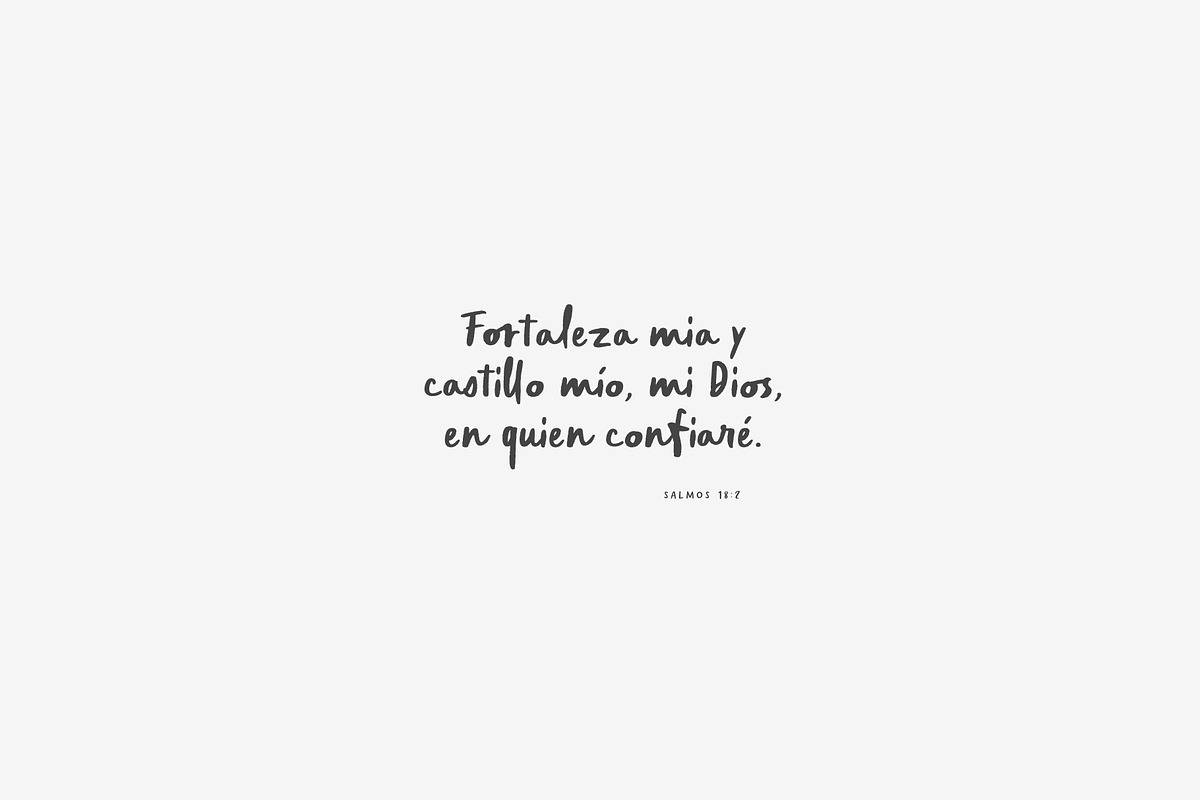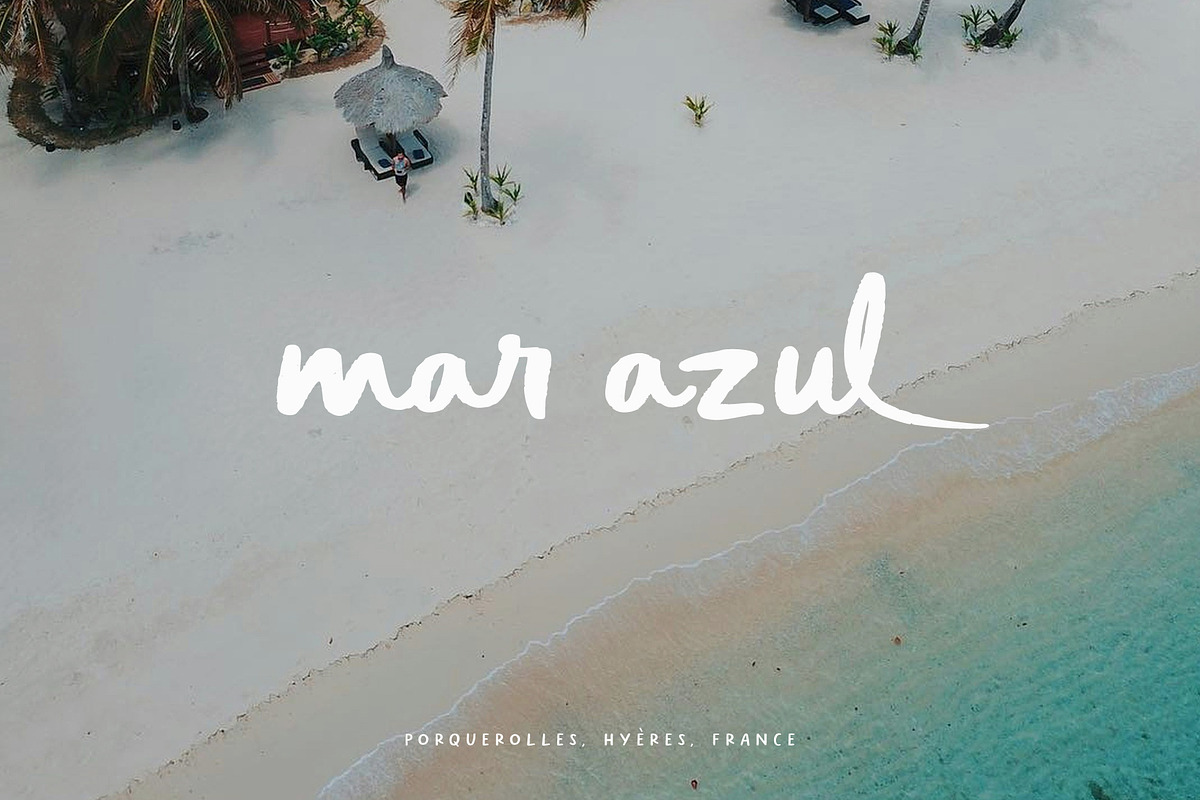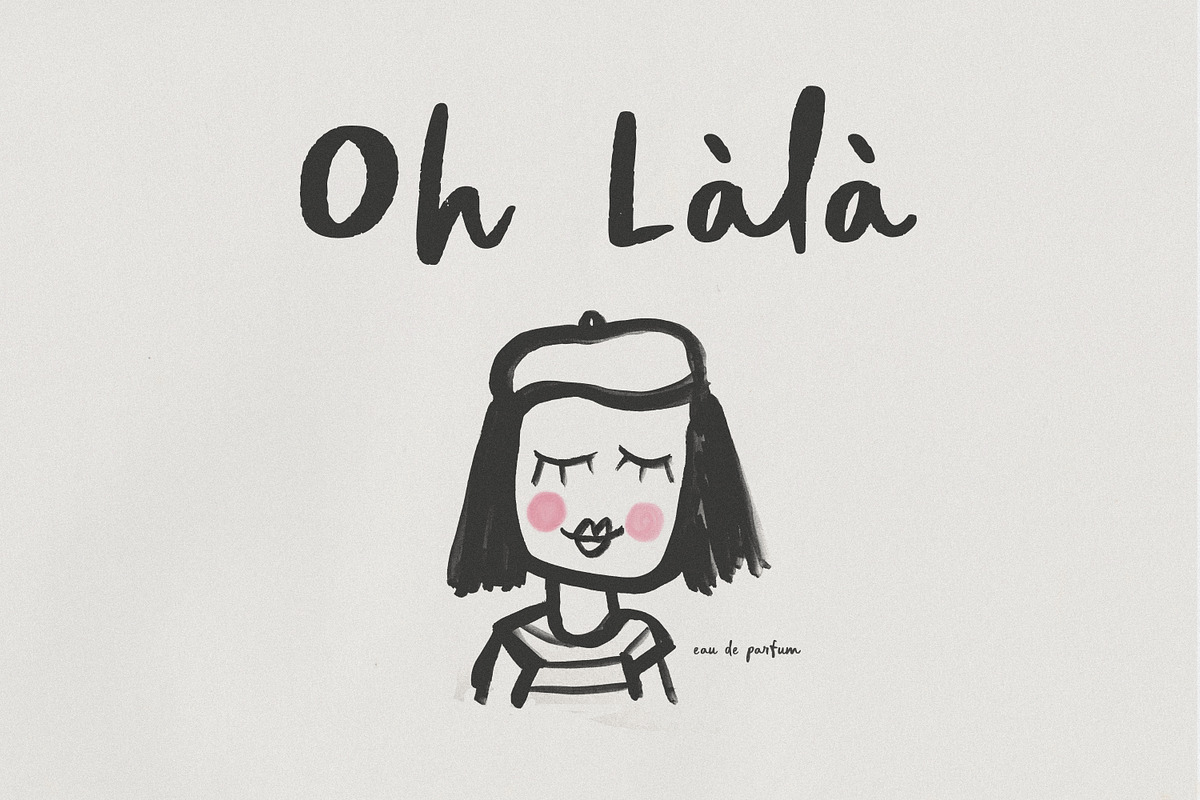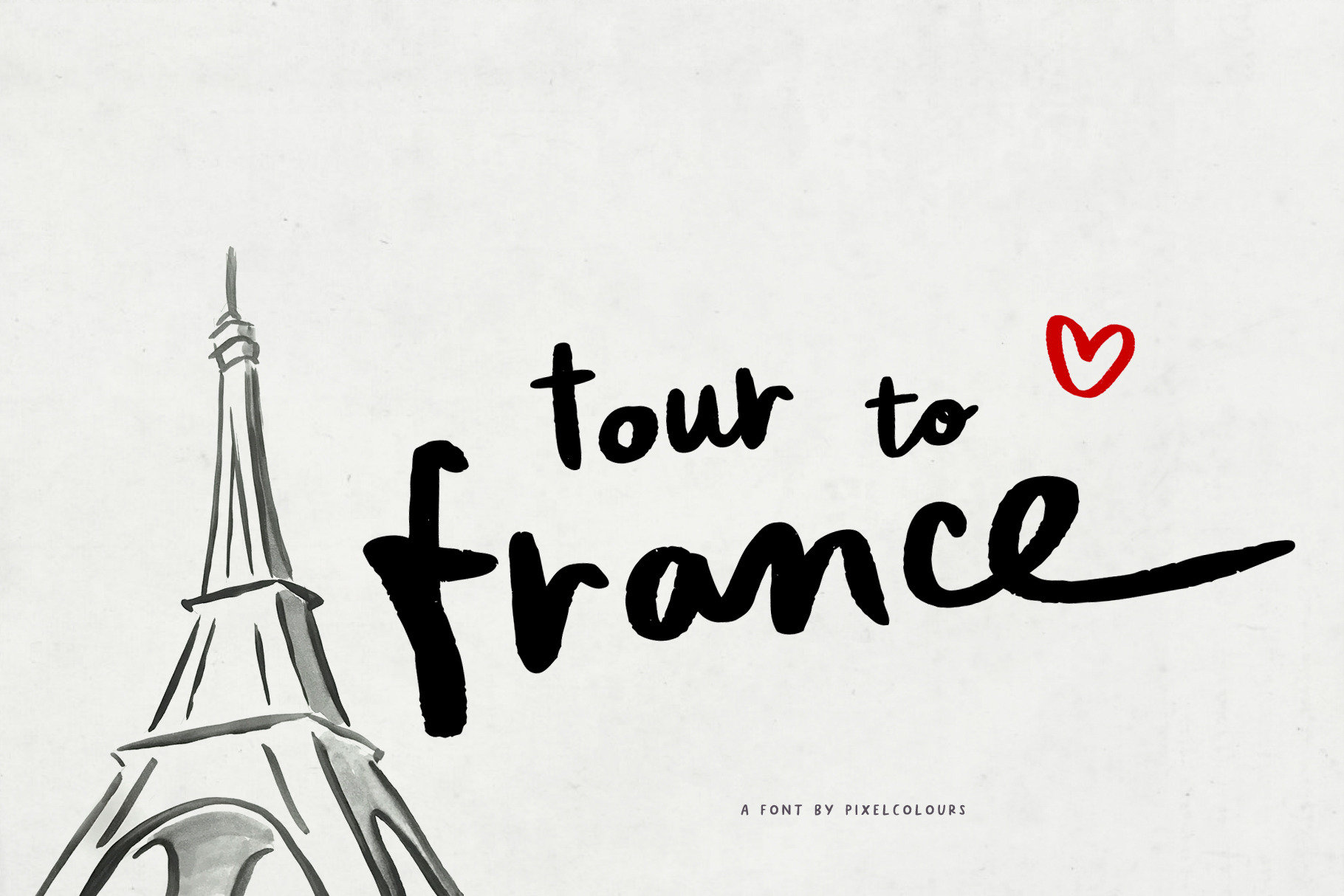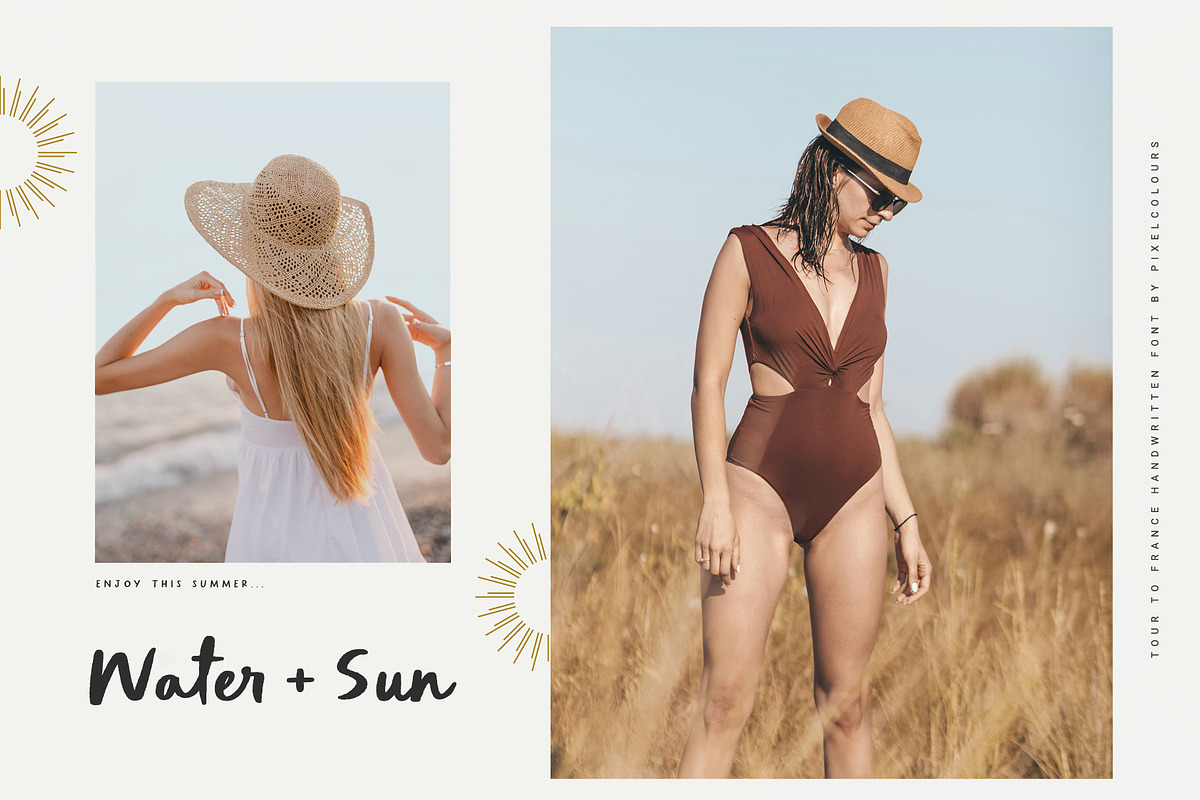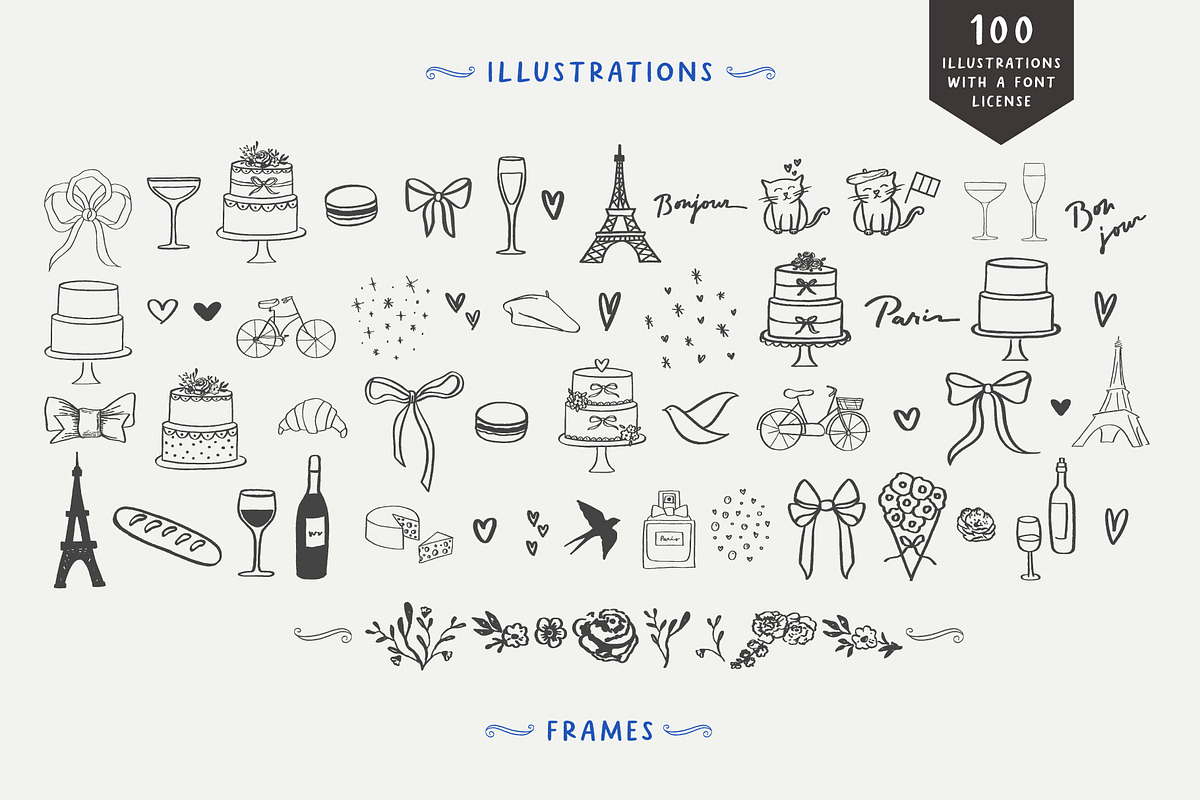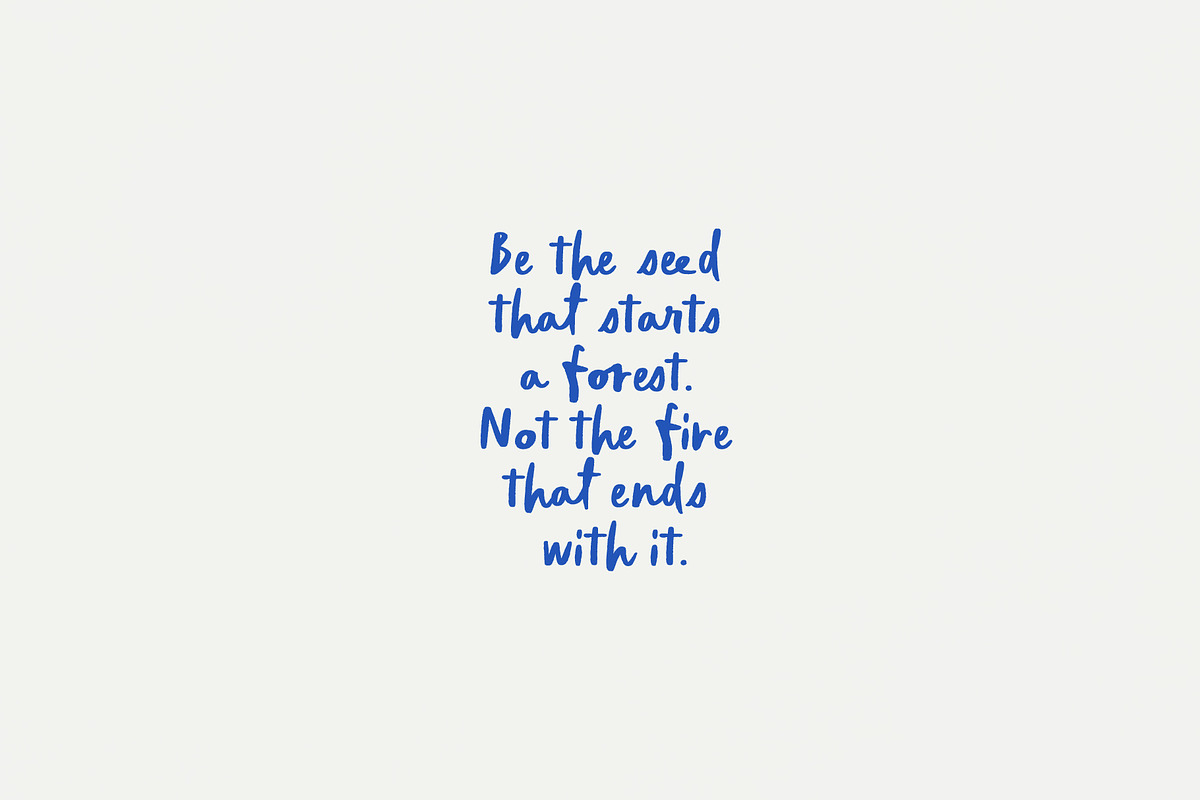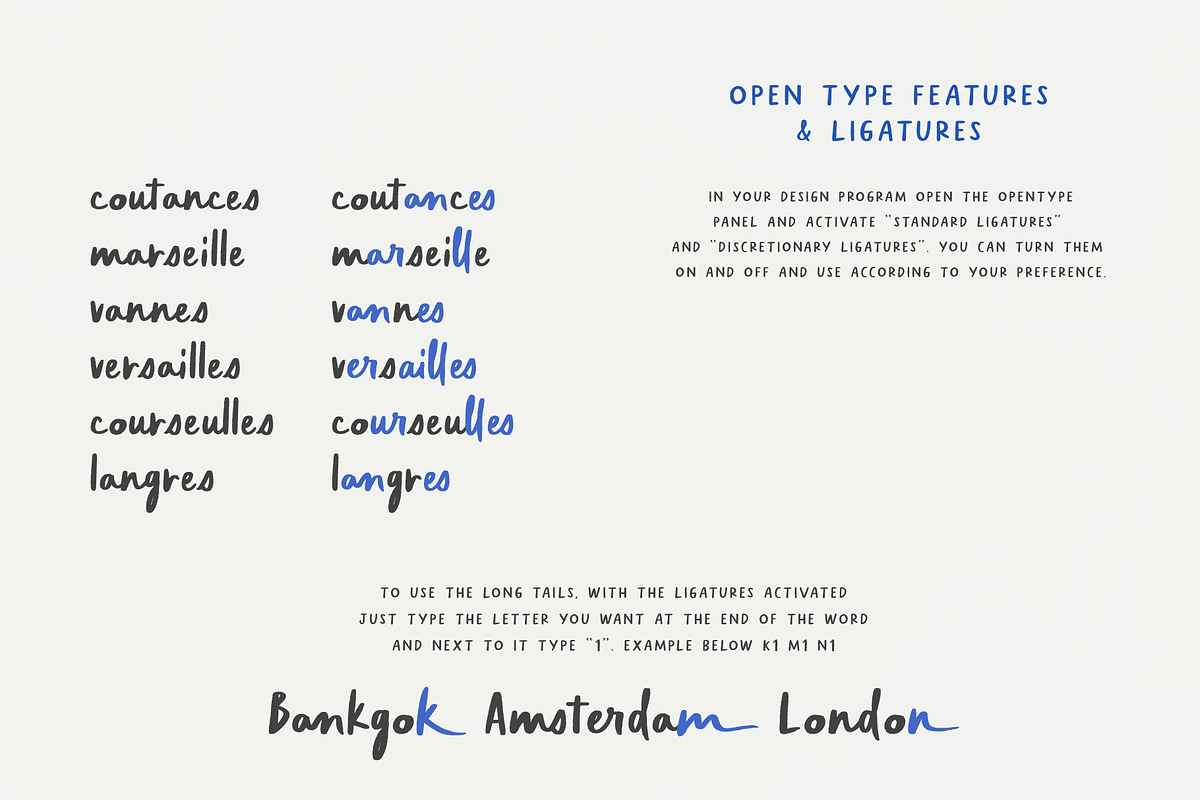
French Font Tour to France
Tour to France is a chic handwritten font inspired by the whimsical aesthetic of French romance, perfect for adding charm to your projects. This handwriting font includes a sans serif and a dingbats font with more than 100 cute illustrations. All of the 3 typefaces meticulously hand-drawn, featuring the same style of unfinished strokes and delightful texture, adding a touch of sweet informality to your designs. Includes ligatures and alternates designed to enhance the natural flow of handwriting. Take your baggage and embark on a journey of love in design with this sweet, quirky font.
Includes a vast collection of illustrations to create the sweetest wedding invitations, greeting cards, scrapbooking, branding, logos, artisan packaging, etc. All packed in a dingbats font that includes frames, florals, ribbons, wedding, and French elements. Forget about dealing with licenses, as all of these come with a font license. Oh là là!
- Tour to France: the handwritten font with unfinished strokes, texture, and alternates for creating flowing, natural writing.
- Tour to France Sans: the sans-serif variant ideal for small texts, taglines, directions, instructions, ingredients, etc.
- Tour to France Extras: 100 lovely illustrations to complement the two fonts and create the sweetest designs.
- All characters, numerals, punctuation
- Language support